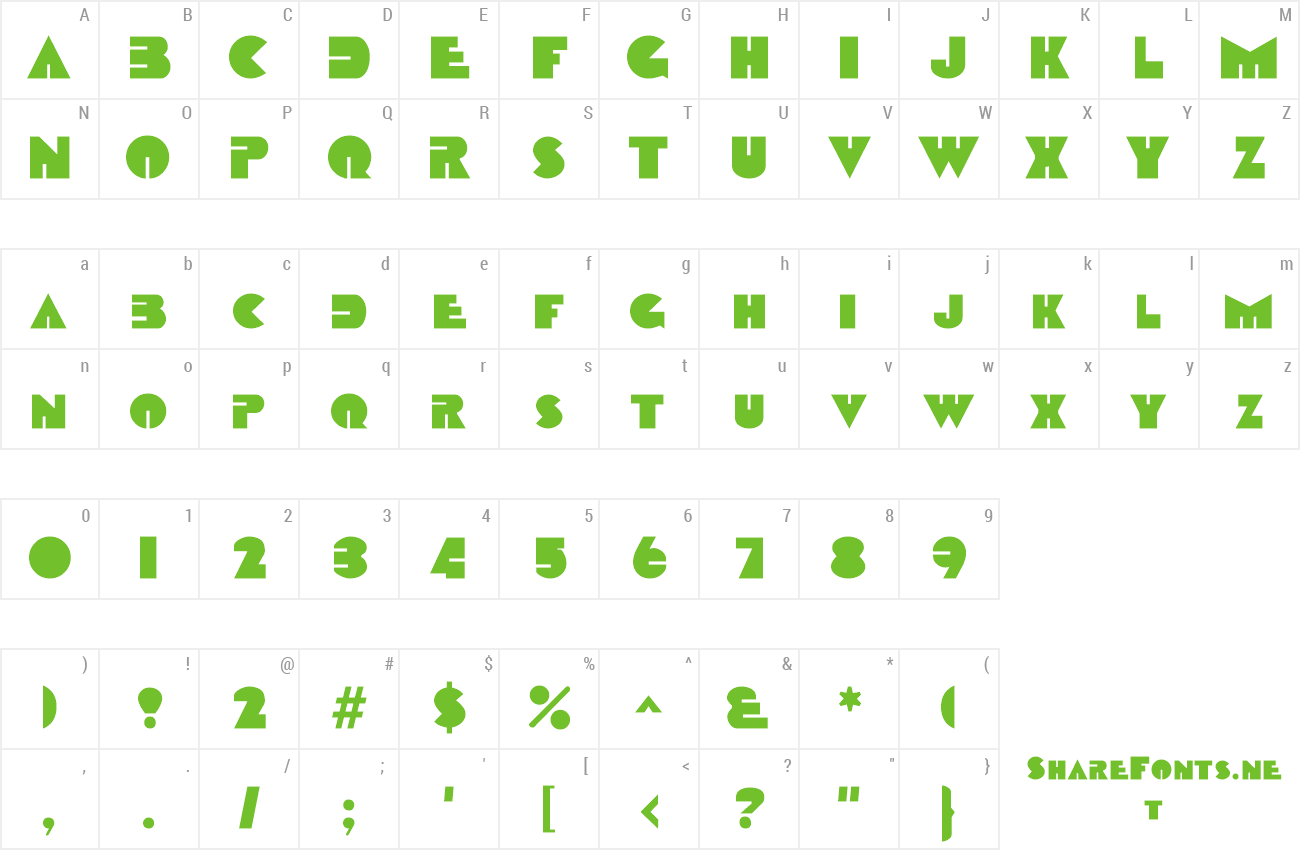
Baby Teeth Font
Baby Teeth Font - Web baby teeth character map. Discover a world of captivating typography for your creative projects. Explore baby teeth fonts at myfonts. Download the baby teeth font for free in ttf format compatible with windows and mac. Explore our extensive collection of beautiful thousands free fonts, ready to use. Line (straight hairline notches), opaque (no counters), dotted (dotted counters), baroque (curved notches), each in solid and outlined versions. Web baby teeth download for free, in ttf for windows and mac! Unleash your design potential today! Digital font data licensed from weatherly systems, inc. Licensed for distribution by instant artists users club inc.